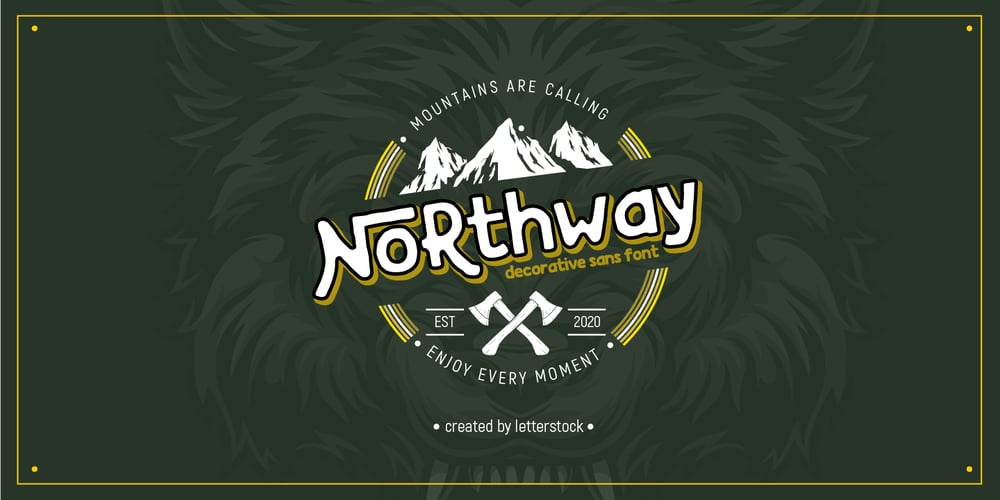
Northway Font Family was designed by Studio LetterStock and published by LetterStock. Northway contains 1 styles and family package options. Northway is a sans decorative font with retro style, this concept is perfect for use on your outdoor design, logos, posters and more. Thank you for using this font,LSillustration source by freepik